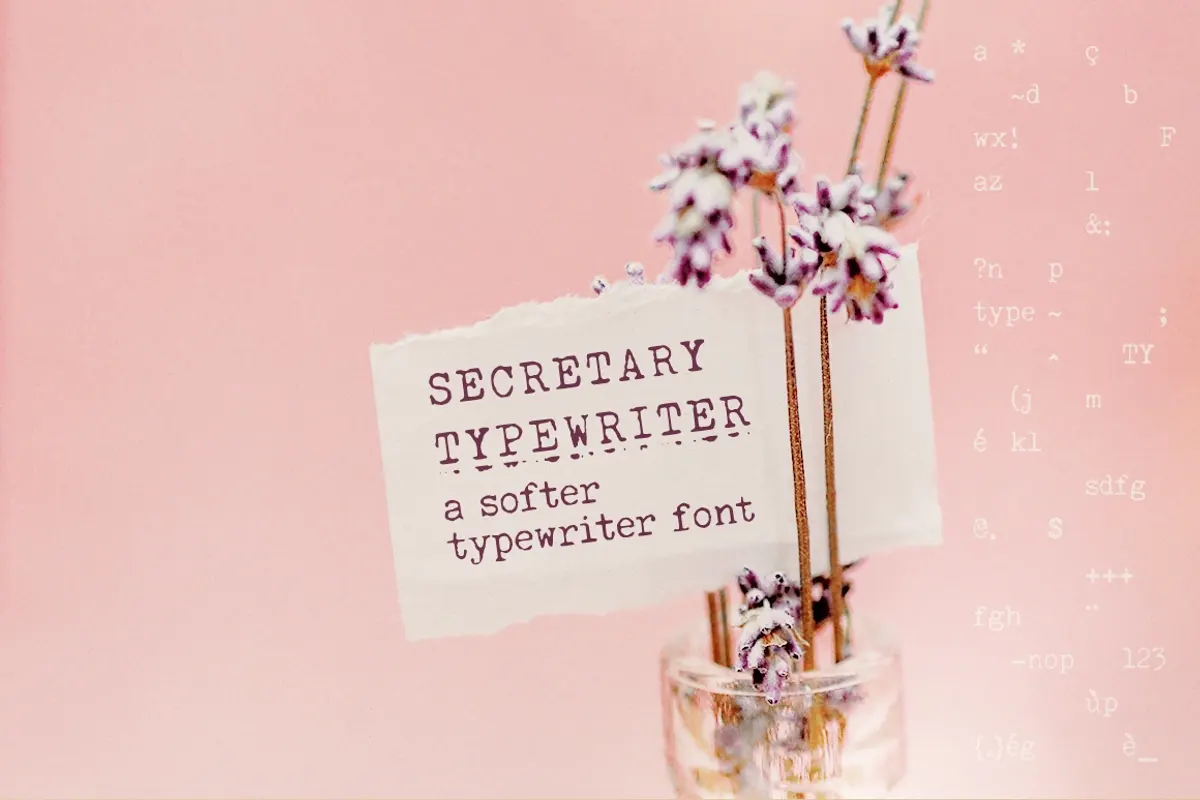
Secretary Typewriter Font Free Download is a classic and charming typewriter-inspired typeface that brings a retro, vintage feel to your designs. With its fixed-width letterforms and authentic typewriter-style imperfections, this font is perfect for creating nostalgic logos, posters, social media graphics, invitations, and more. Its distinctive design adds a sense of personality and warmth to your projects, making it ideal for creative campaigns, retro-themed designs, and personalized content. Whether you’re designing for a nostalgic brand, an event, or crafting a custom invitation, Secretary Typewriter Font Free Download lets you experiment with its old-school charm in personal projects before purchasing a commercial license. Add a timeless, vintage touch to your designs with this beautifully crafted typewriter font.